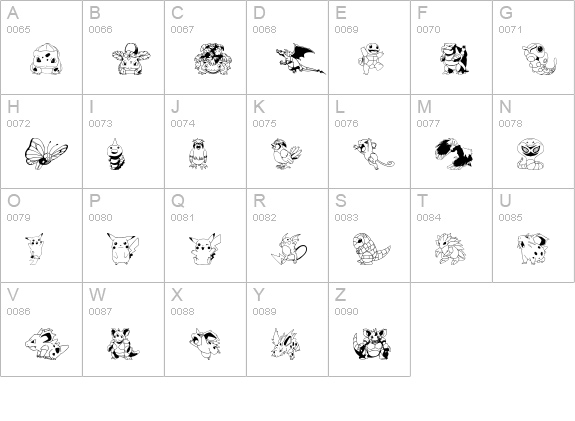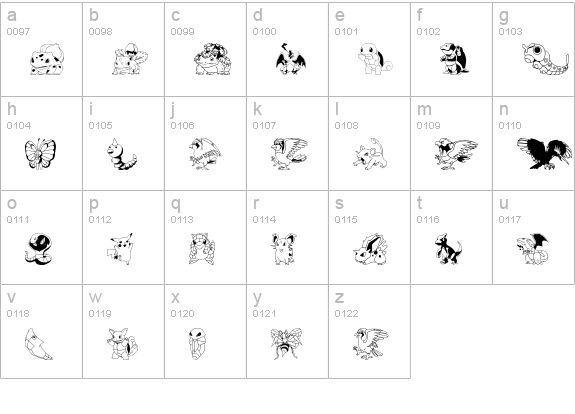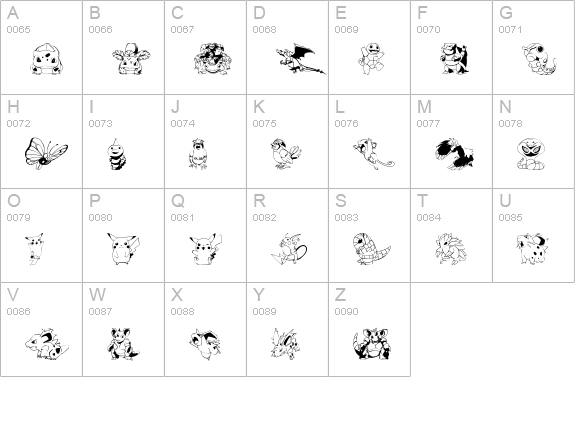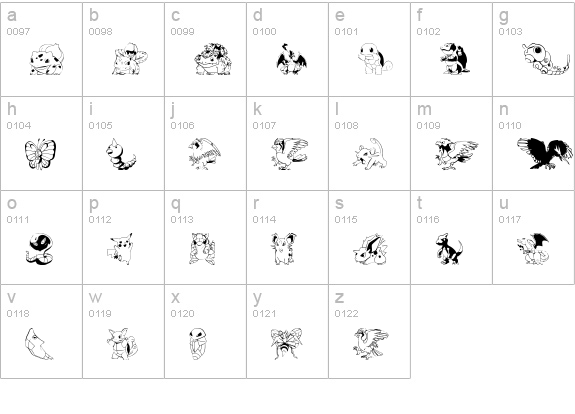
Pokemon Kiddy Ding Font Details
Pokemon Kiddy Ding font is a whimsical and playful typeface that is sure to bring a sense of fun to any project. With its charming and childlike design, this font is perfect for adding a touch of innocence and joy to your designs. The Pokemon Kiddy Ding font features a variety of adorable Pokemon-inspired symbols and characters that will delight fans of the popular franchise. Best of all, the Pokemon Kiddy Ding font is completely free to download at FontsMarket.com. Whether you're working on a project for a children's book, a birthday invitation, or just want to add a bit of whimsy to your designs, this font is sure to bring a smile to your face. Download the Pokemon Kiddy Ding font today and let your creativity run wild with this delightful and free typeface.